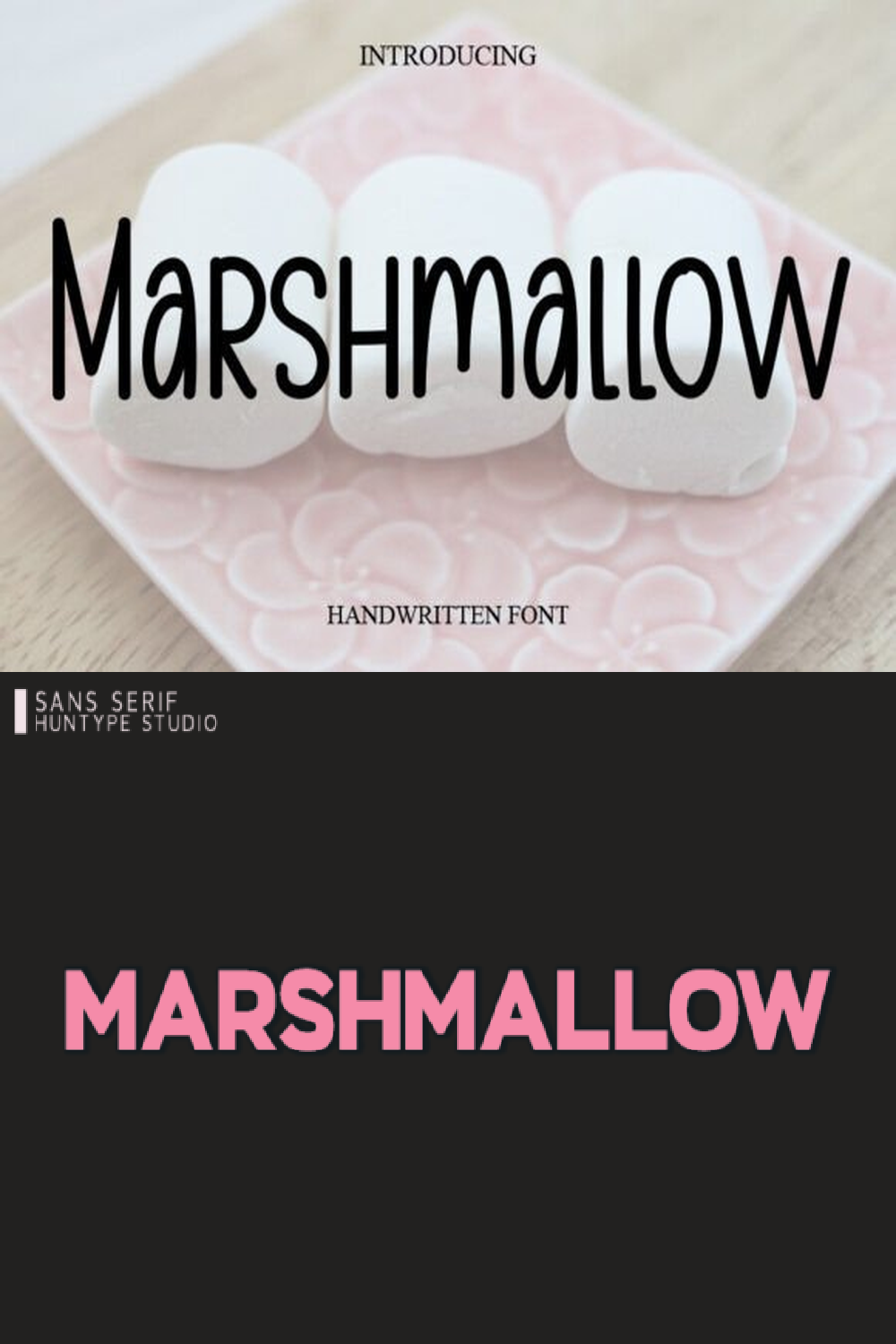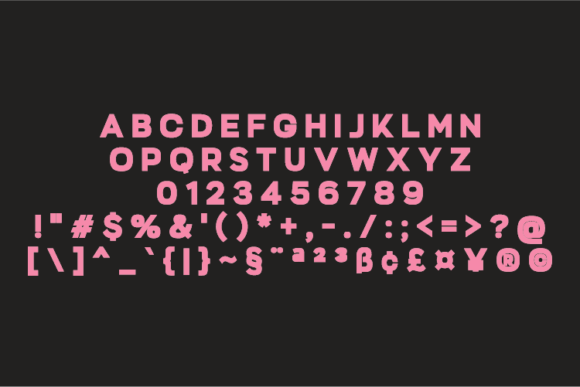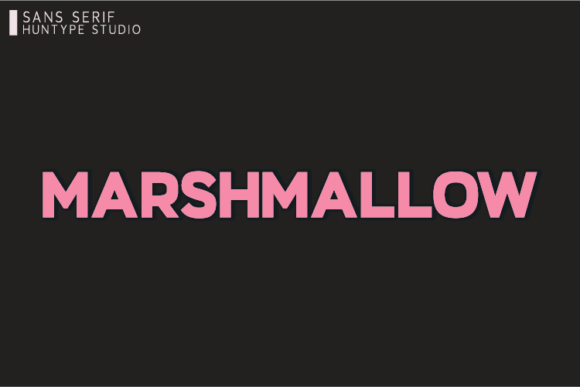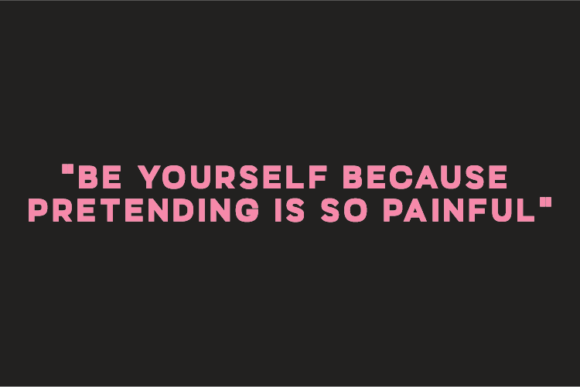
Marshmallow Font: Cute Sans Serif for Branding & Social Media Design
About the Marshmallow Font
Make a bold statement with Marshmallow Font, a powerful and memorable font. Marshmallow is an amazing all-caps sans serif font. Versatile, smooth, and clean, it will look great in any creative context. Rechole works beautifully for logos, branding, and web headings.
Marshmallow’s rounded forms and all-caps structure make it ideal for headlines, short taglines, and branding applications where a friendly, approachable yet modern feel is desired. It works exceptionally well on packaging for products targeting a younger demographic or in digital marketing materials requiring a bold visual impact. However, its limited character set and all-caps style make it unsuitable for body text or extended reading.
Avoid using Marshmallow for UI elements, lengthy paragraphs, or situations requiring high readability. The font’s inherent boldness can overwhelm smaller sizes and intricate designs.
Pair Marshmallow with a clean sans-serif like Lato for body copy to create a balanced and harmonious design. For a more playful feel, consider pairing it with a handwritten script font; for a sophisticated look, a classic serif like Garamond would provide excellent contrast.
Marshmallow Font Usage Examples
Marshmallow Font Example